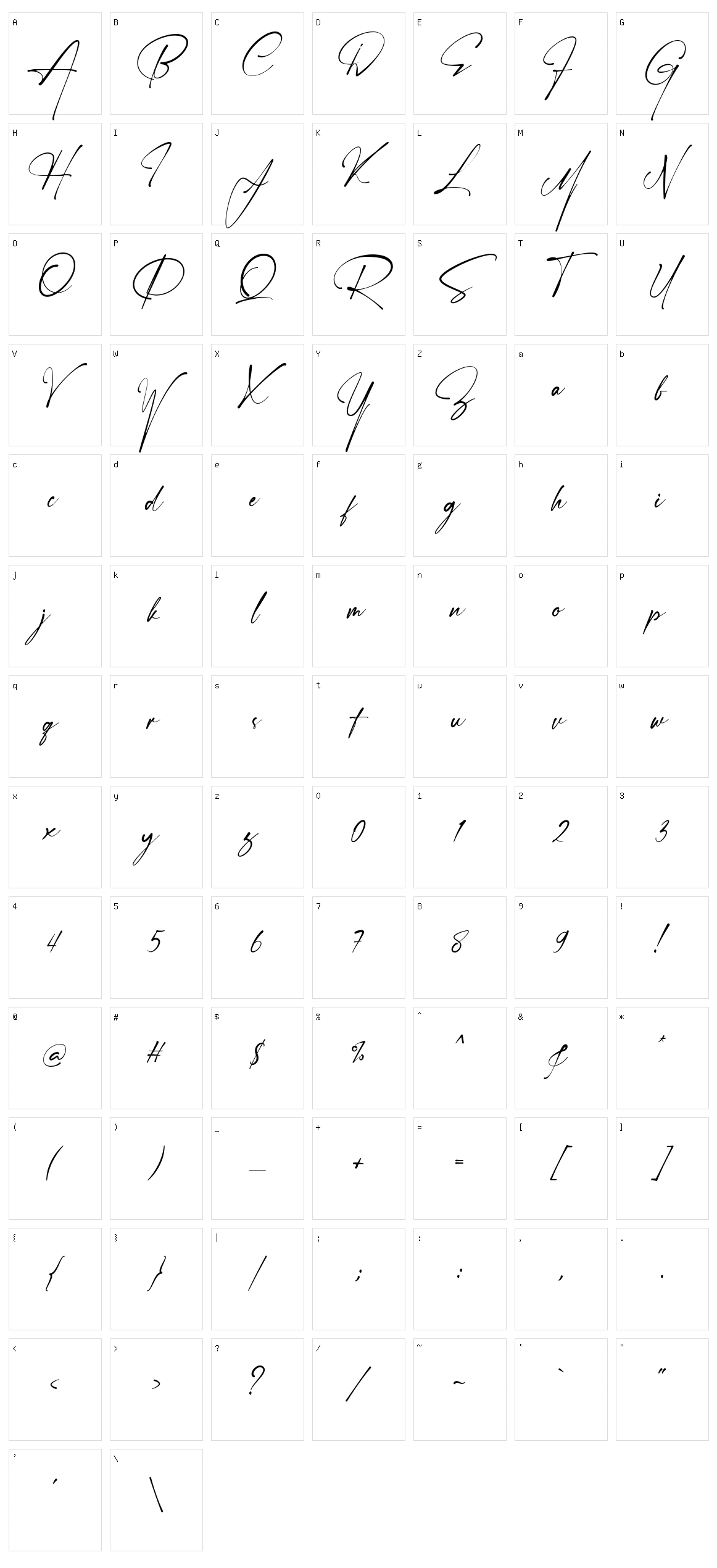
The free font Janelotus is carefully designed by Lemonthe, showcasing a thoughtful balance of creativity and usability and falls under the Script font style. When you download the ZIP file, it contains only 130.72 KB of font files, making it lightweight and quick to download. Please review the license details below to understand permitted usage and distribution rights. If license information is not available, we recommend using this font for personal projects only or contacting the author directly for commercial usage permissions.
Janelotus 2020 by Lemonthe